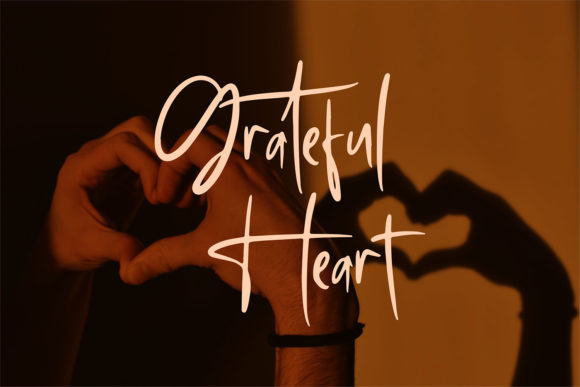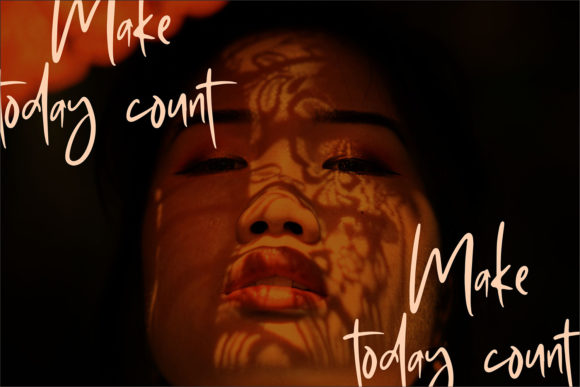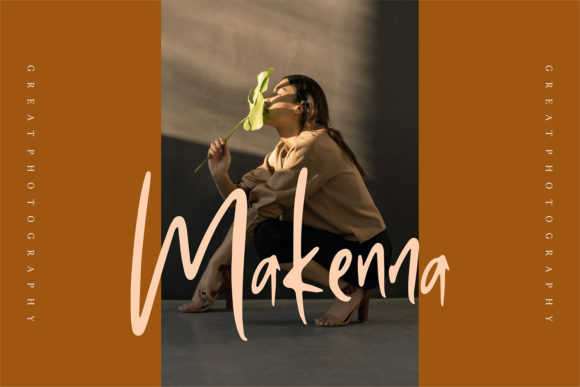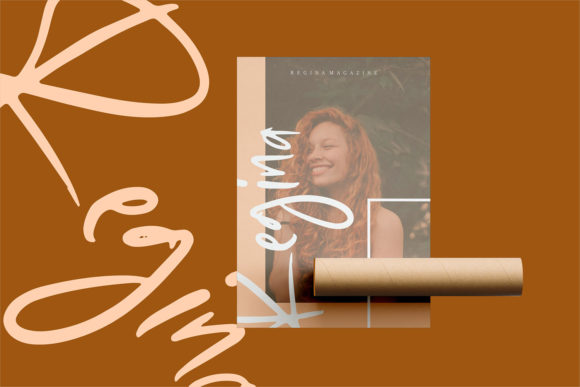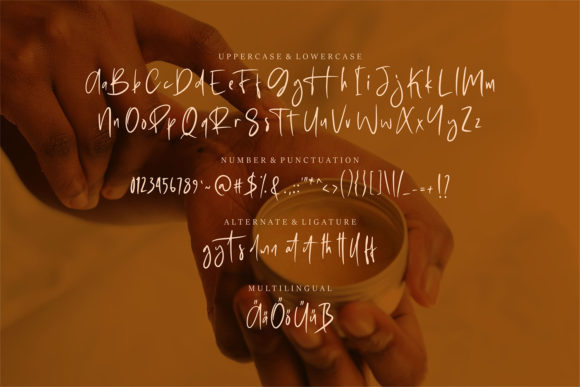
Brielle Font
About Brielle Font
Brielle is a relaxed and friendly brushed script font. It looks beautiful on a variety of designs requiring a personalized style, such as wedding invitations, thank you cards, weddings, greeting cards, logos and so on.